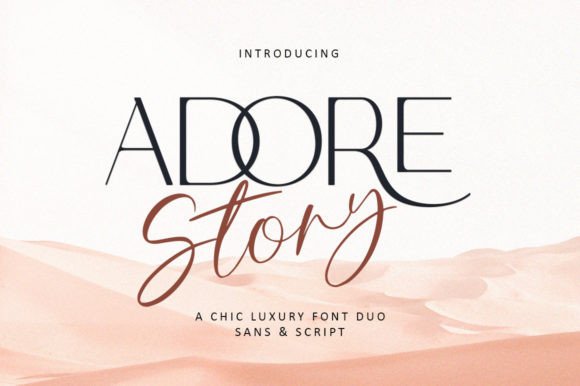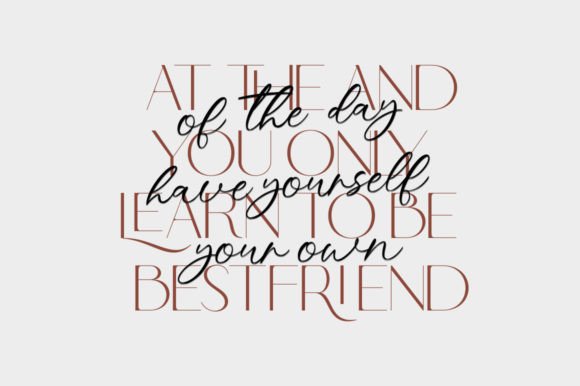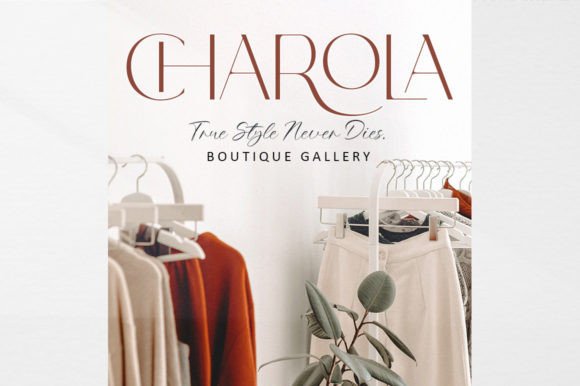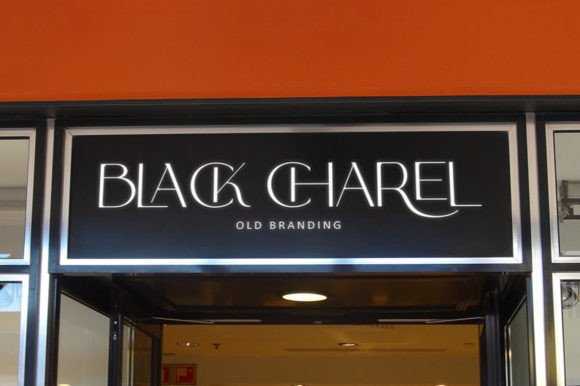
Adore Story Font: Elegant Script & Sans Serif for Modern Branding
About the Adore Story Font
Make a bold statement with Adore Story Font, a powerful and memorable font. Adore Story is an exquisite font combination that combines a chic sans-serif and elegant script for a sophisticated and modern look. Whether you’re designing logos, packaging, or social media graphics, this font duo is perfect for adding a touch of luxury and refinement to your projects.
Adore Story excels in branding applications requiring a touch of elegance, particularly logos, short headlines, and packaging design where its refined forms create a sense of luxury. It also works well for social media graphics and short marketing materials. However, its script component is less suitable for large amounts of body text or UI elements; the intricate details can become illegible at smaller sizes.
The sans-serif element of Adore Story pairs well with geometric sans-serifs for a consistently modern feel, or with warmer, neutral serifs for a more balanced contrast. For a playful yet sophisticated look, consider pairing it with a rounded sans-serif. Avoid pairing it with overly ornate or highly contrasting fonts, as this could detract from its inherent elegance.
The overall personality of Adore Story is sophisticated and modern, lending itself to brands aiming for a refined and luxurious image. Think high-end fashion, beauty products, or boutique hotels.
Adore Story Font Usage Examples